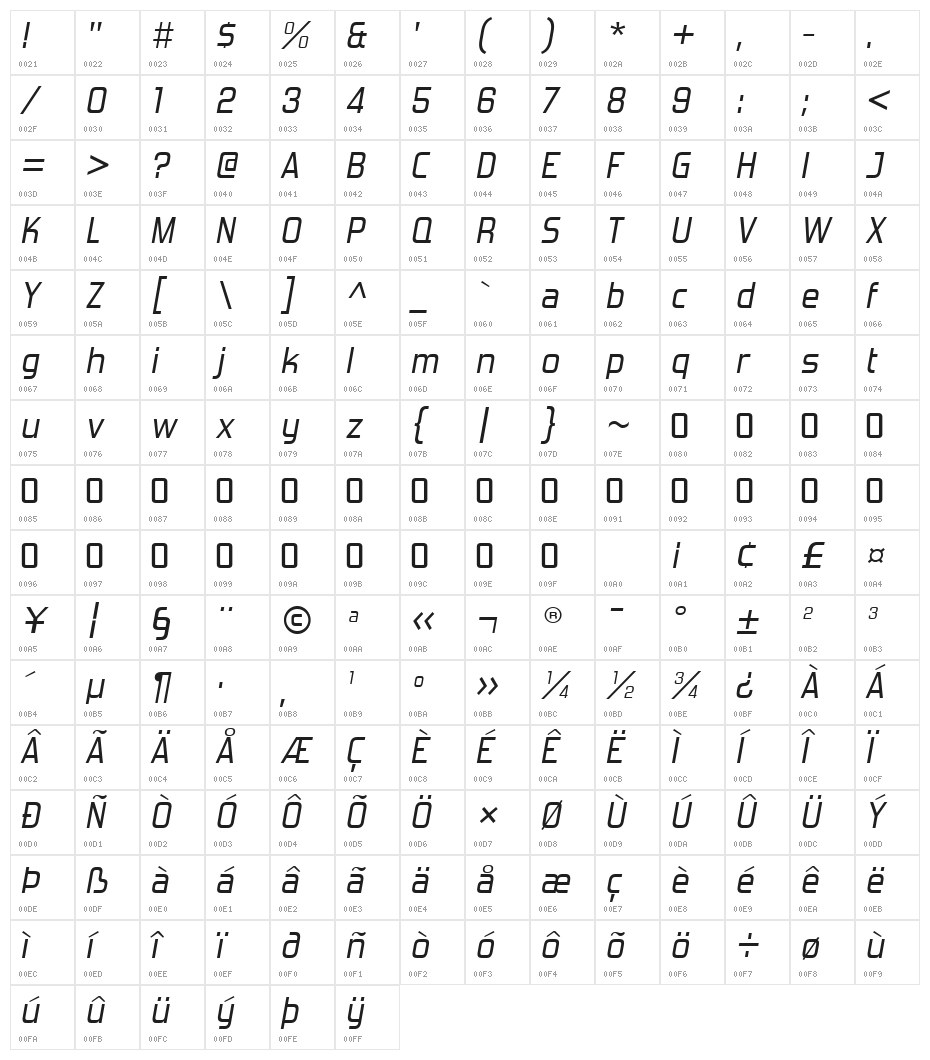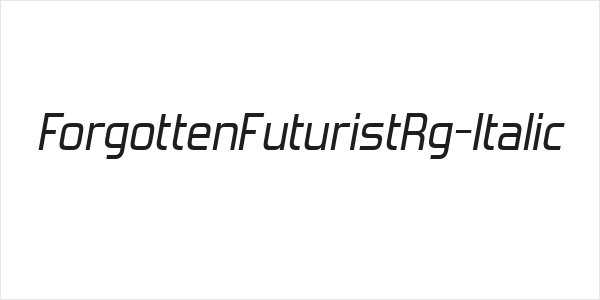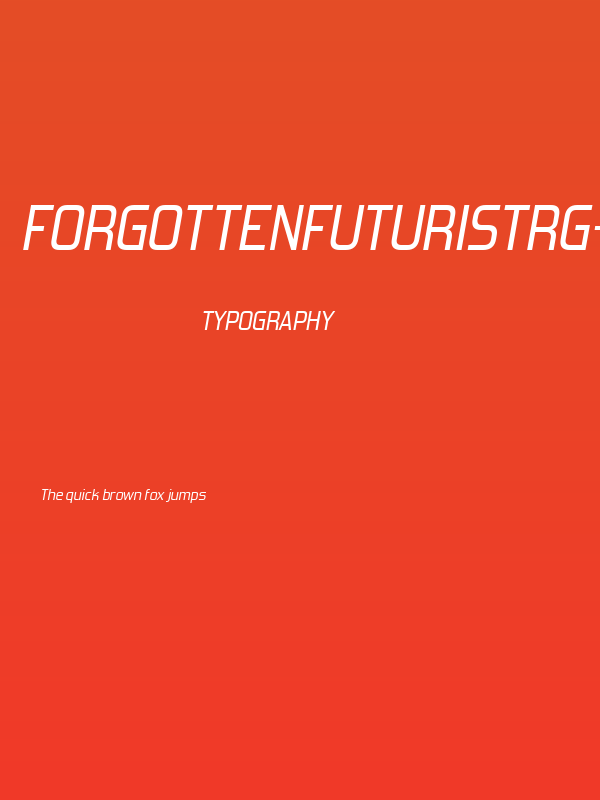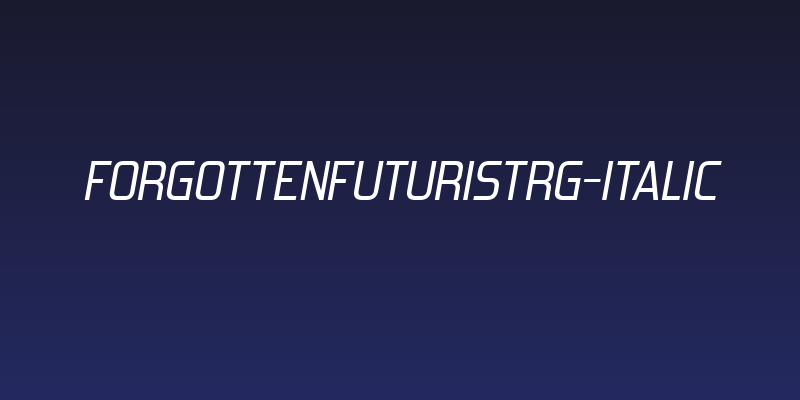
ForgottenFuturistRg-Italic Font
ForgottenFuturistRg-Italic Description
This font features a sleek, modern design with a distinctly futuristic feel. The characters are slightly condensed, giving it a streamlined appearance. The italic style adds a dynamic and forward-leaning aspect, enhancing its contemporary look. The strokes are consistent and smooth, with medium contrast that maintains readability while adding a touch of elegance. The overall design is clean and minimalistic, making it suitable for a variety of applications where a modern aesthetic is desired.
| Proposed Projects | Ideal for technology branding, modern advertising, sci-fi themed projects, and innovative product packaging. |